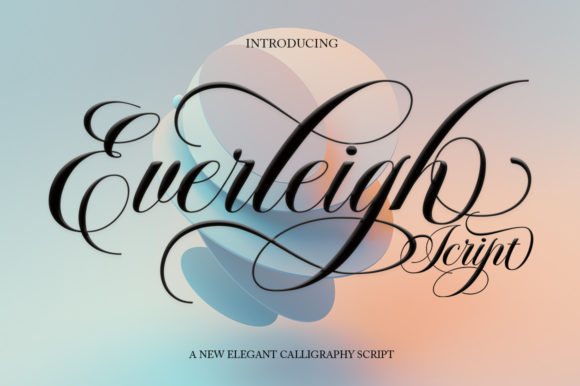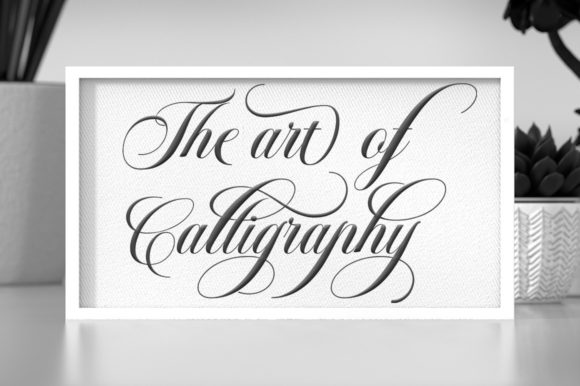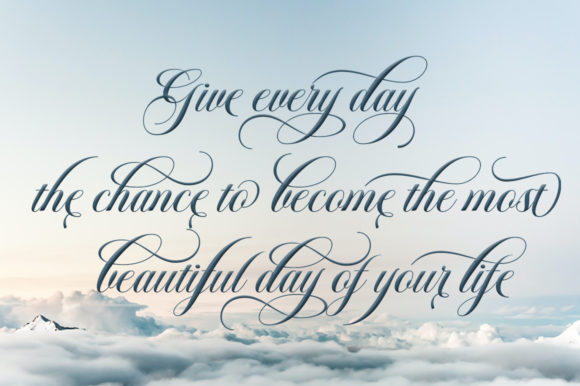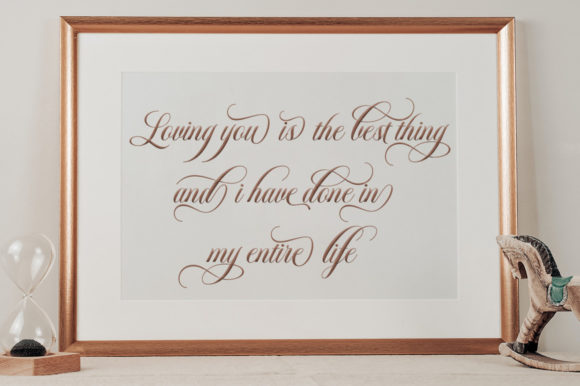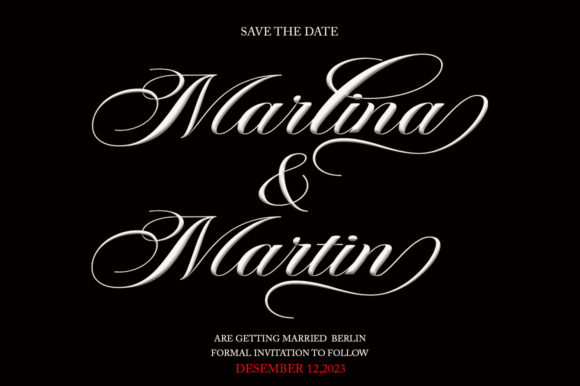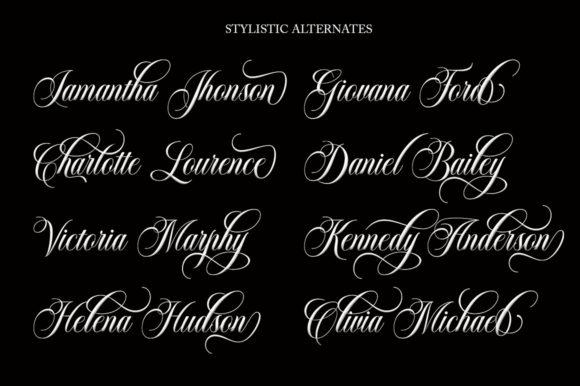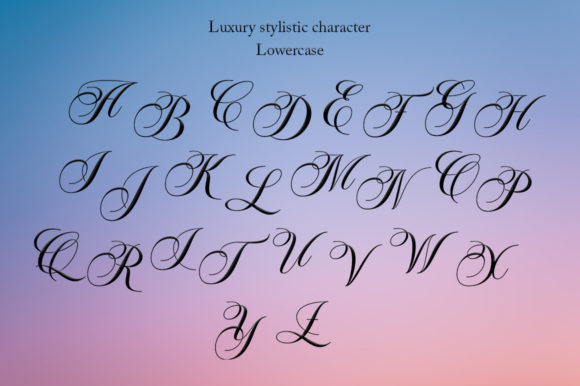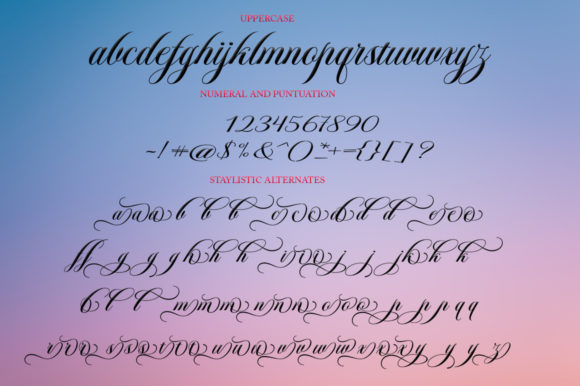
Everleigh Font
Everleigh is an elegant script font with a contemporary atmosphere and impeccable form, inspired by timeless classic calligraphy. Not too thin and not too thick, balanced and varied, this font was designed to enhance the beauty of your projects. This font is PUA encoded which means you can access all glyphs and swashes with ease!